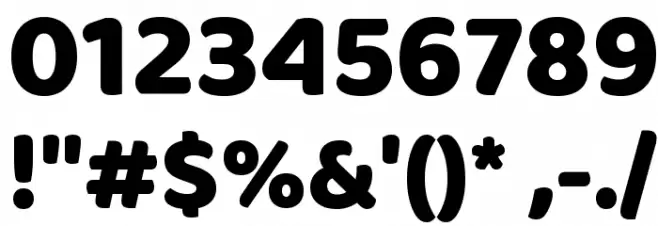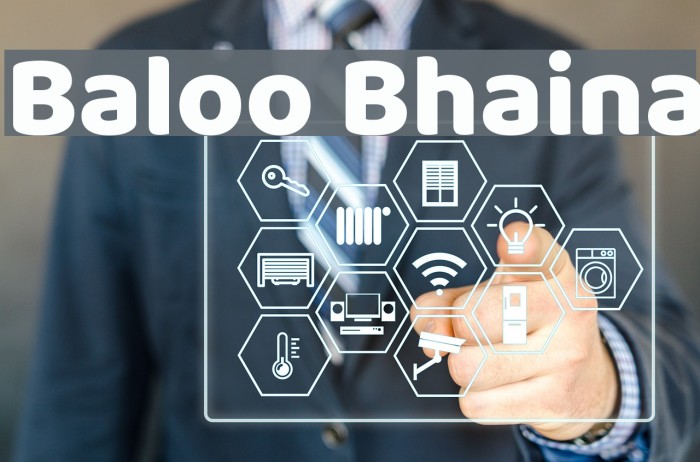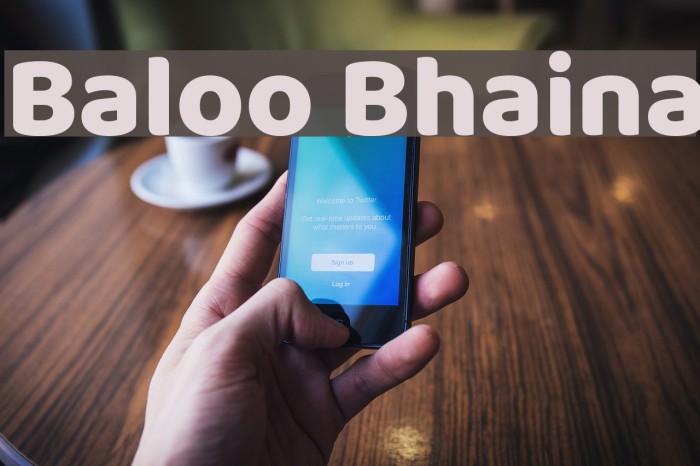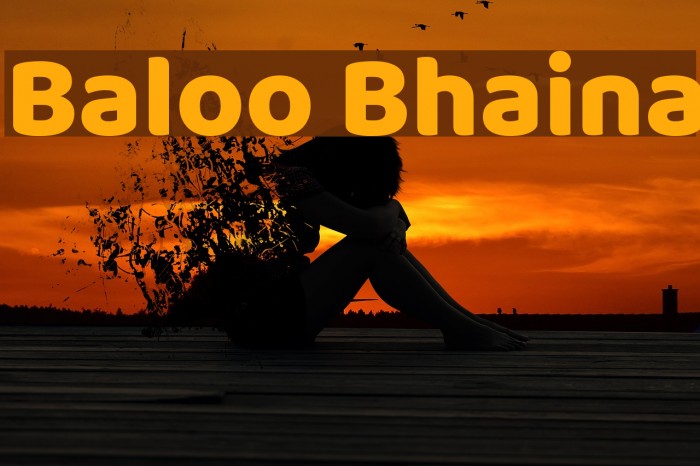
Baloo Bhaina Font
Baloo Bhaina Description
This font exhibits a playful and rounded style, characterized by its bold and friendly appearance. The letters are thick and have a uniform stroke width, giving it a modern and approachable feel. The rounded edges and smooth curves contribute to its inviting and informal look, making it suitable for a variety of creative projects. The font maintains a consistent weight throughout, ensuring readability while adding a touch of whimsy. Its design is versatile, making it ideal for both digital and print media, where a fun and engaging tone is desired.
A playful, rounded font with a bold and friendly appearance from Uncategorized fonts.
- Proposed Projects: Ideal for children's books, playful branding, social media graphics, and casual invitations.